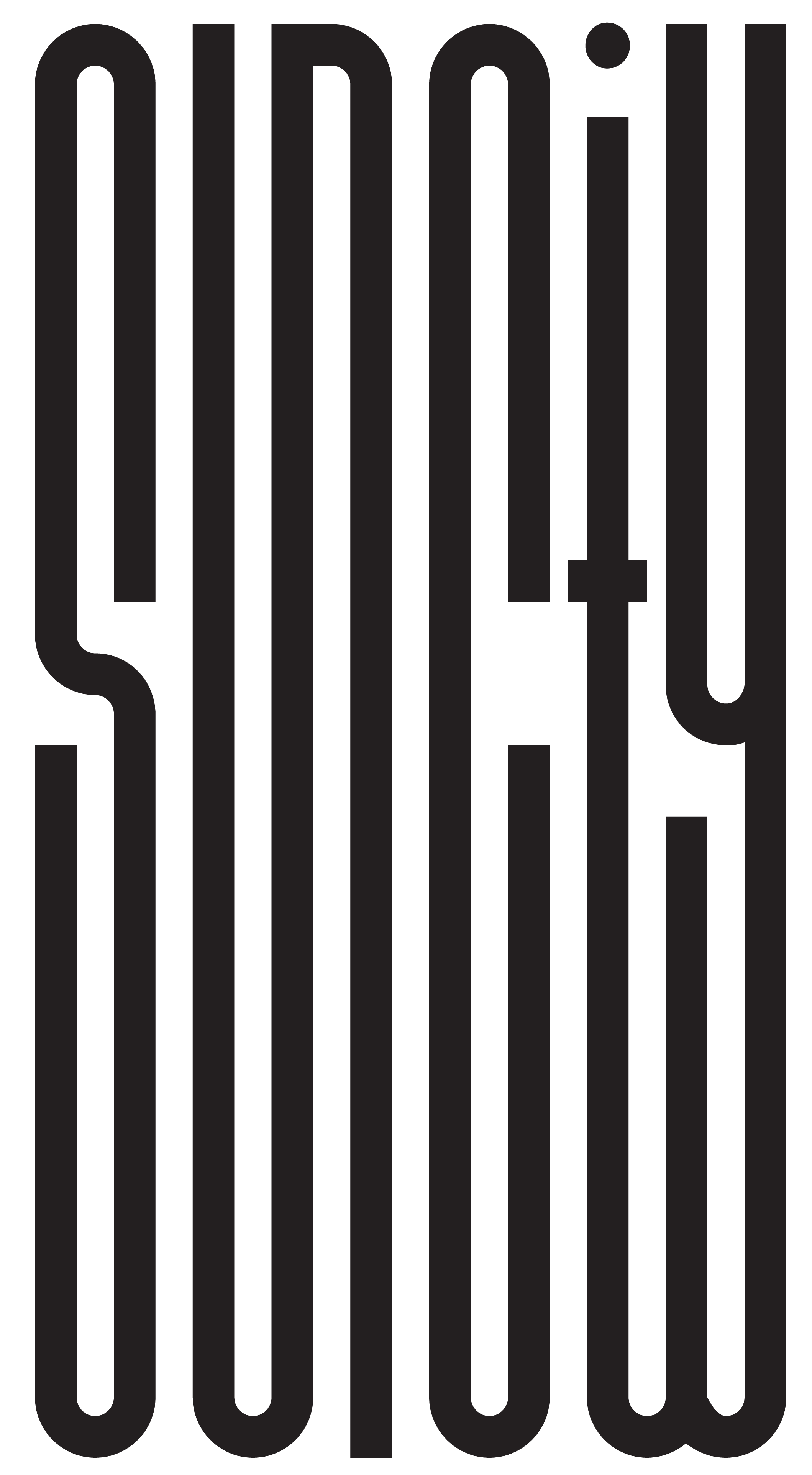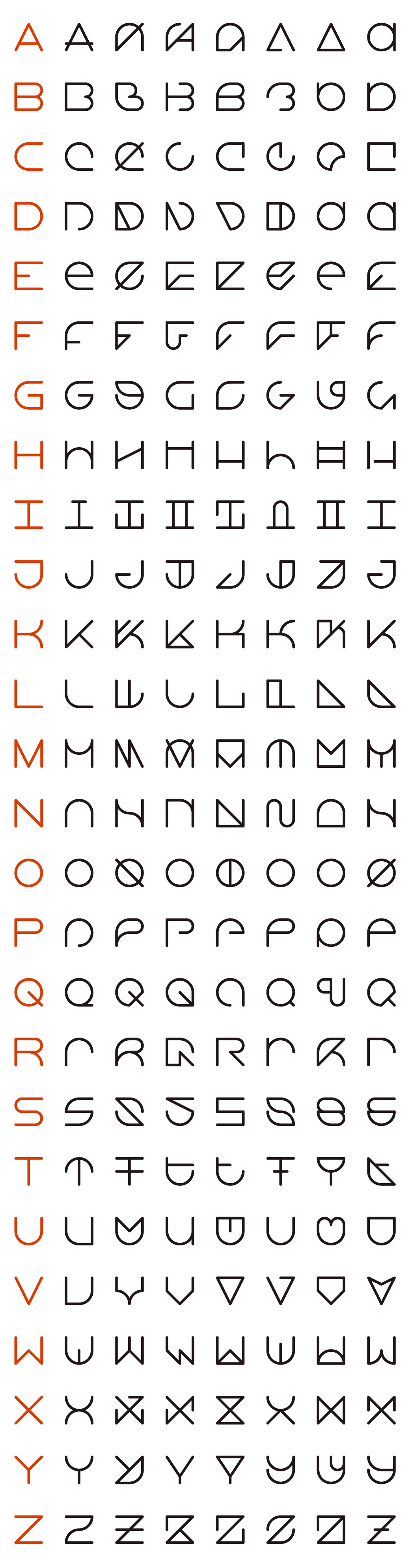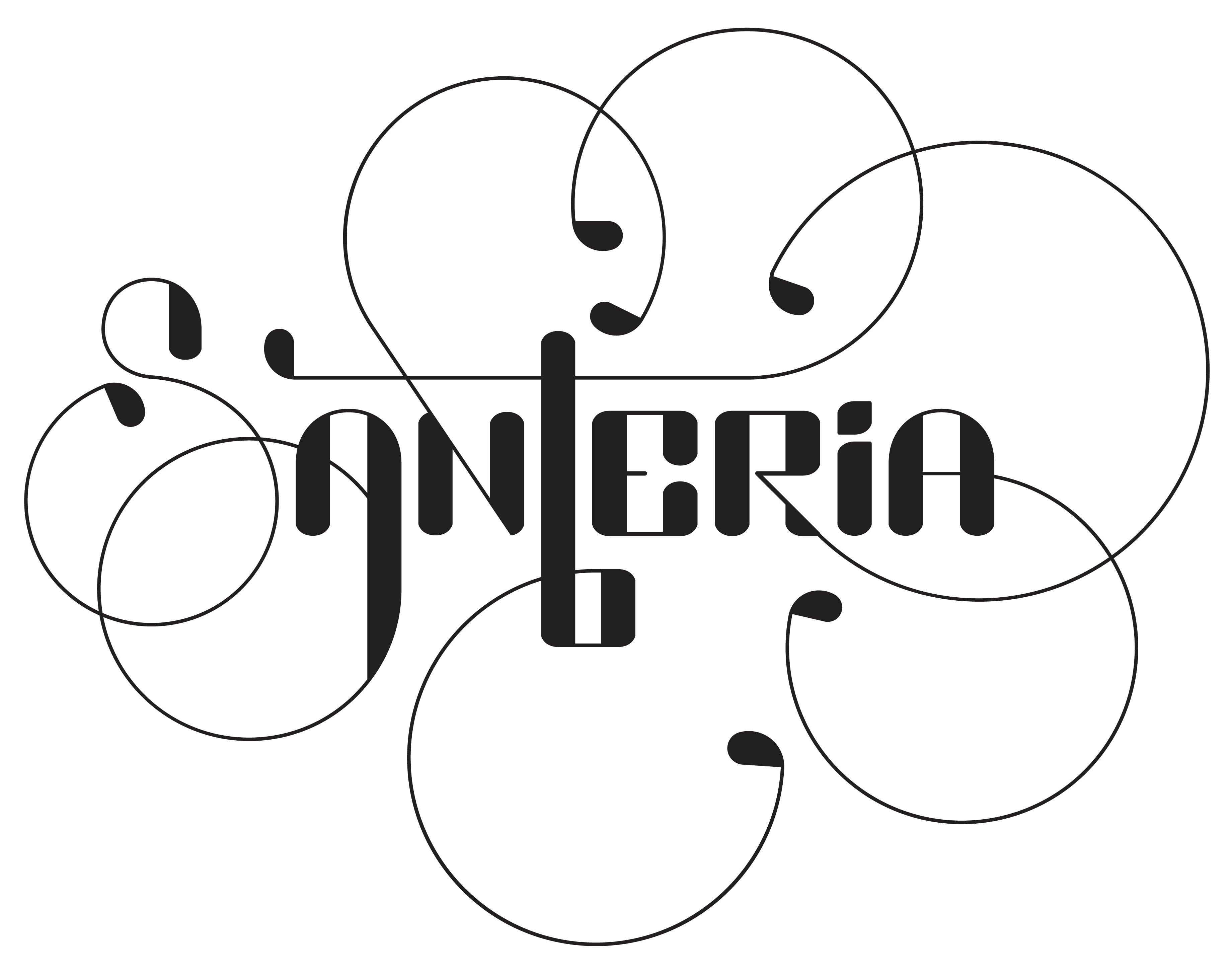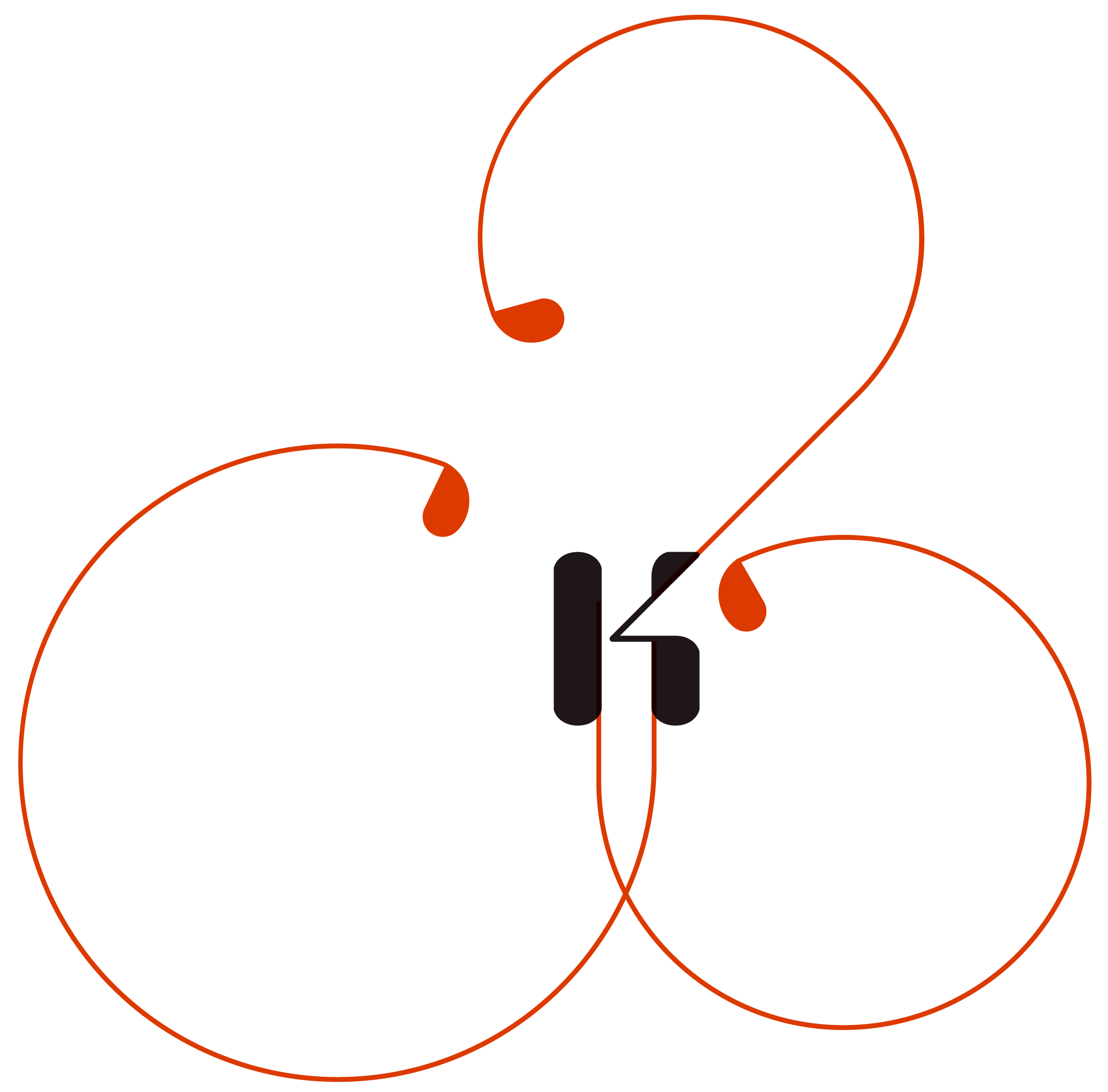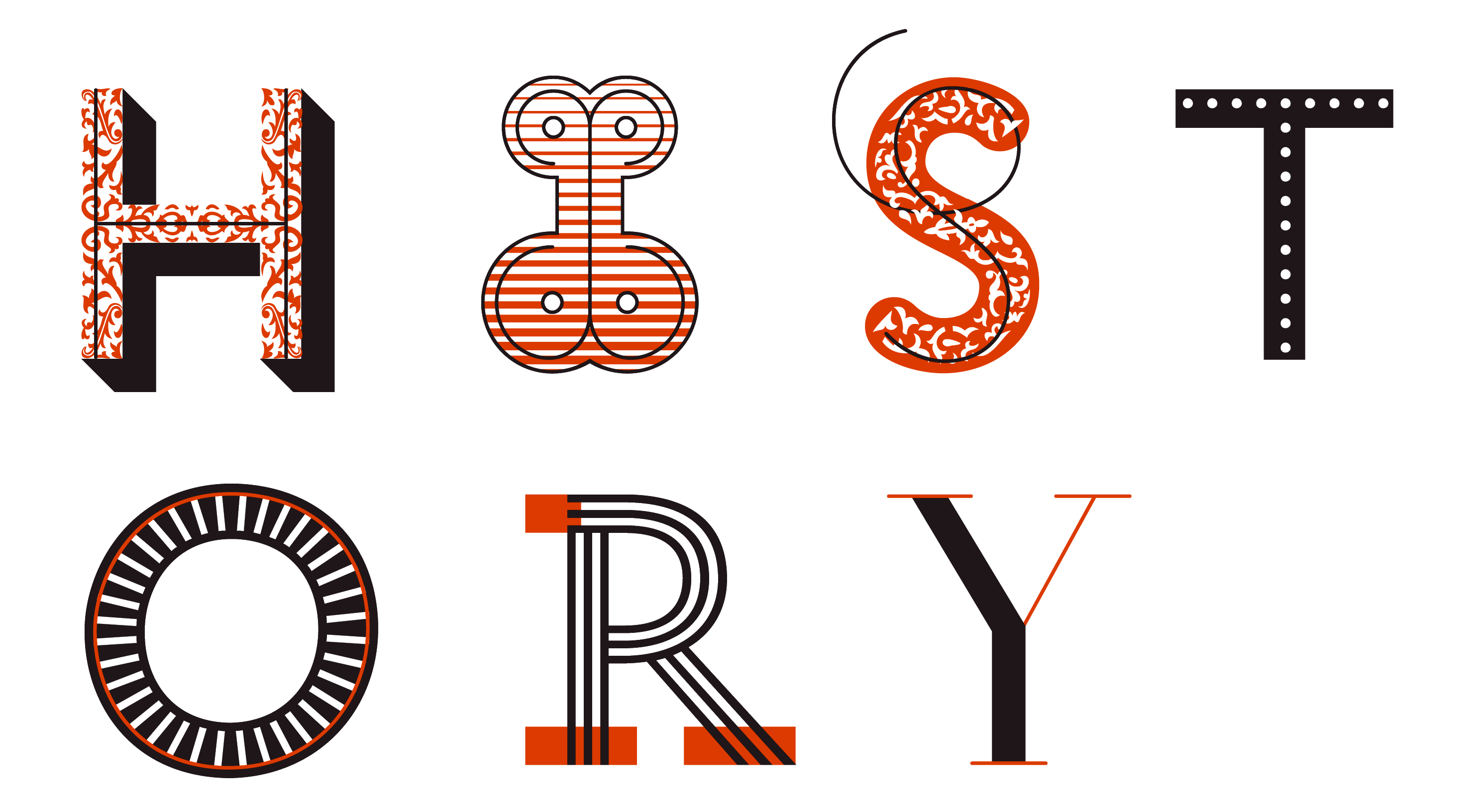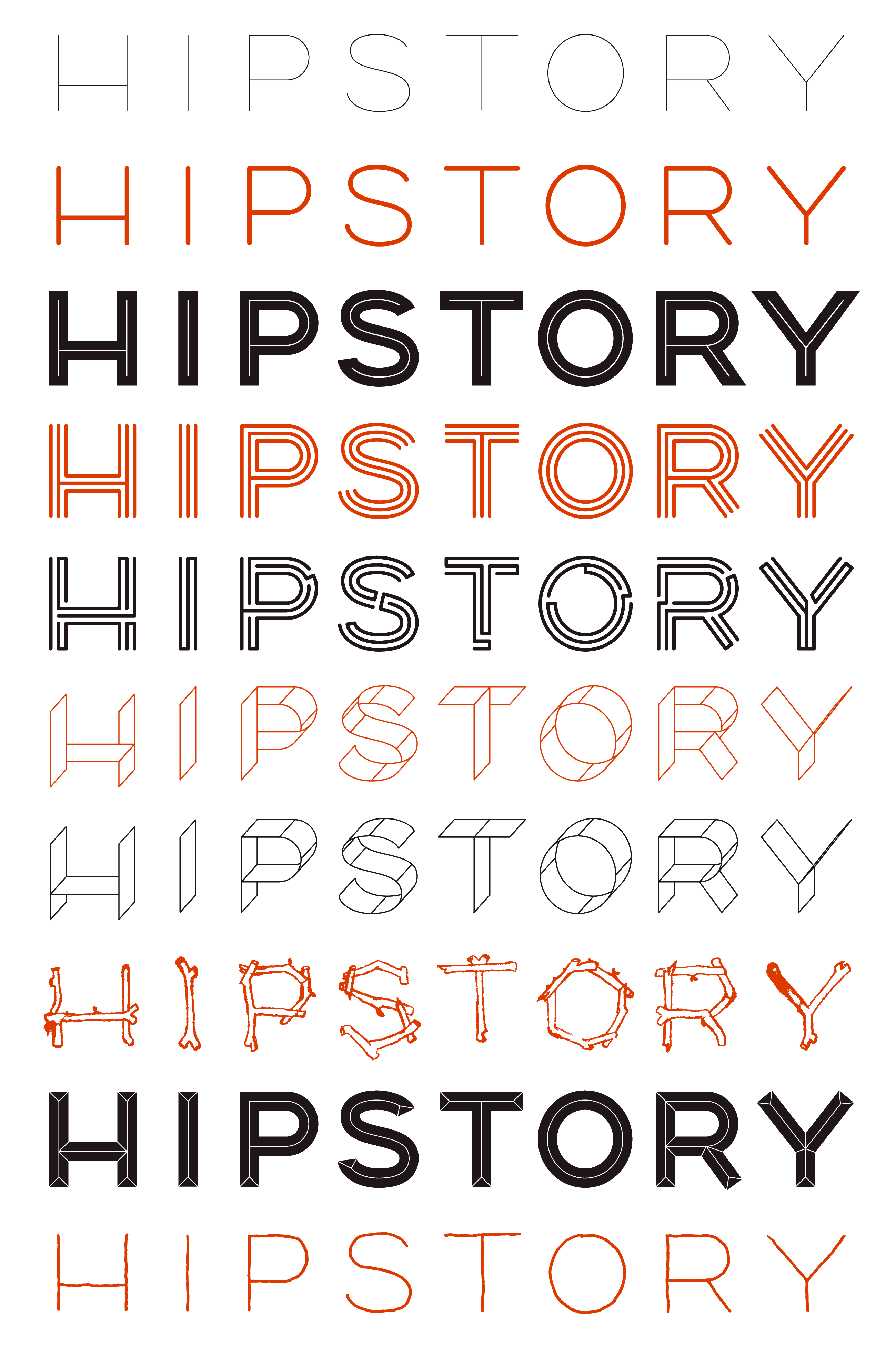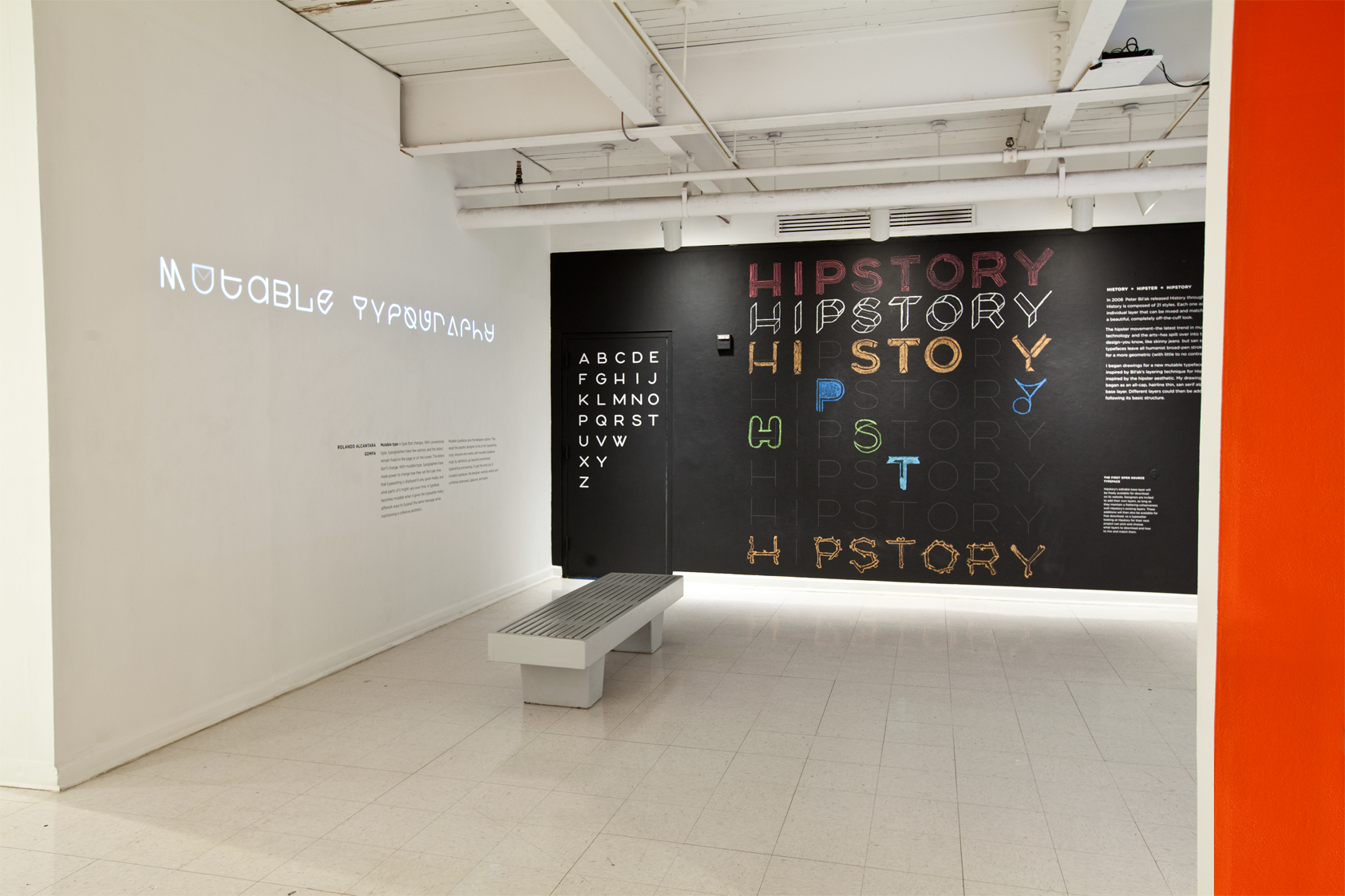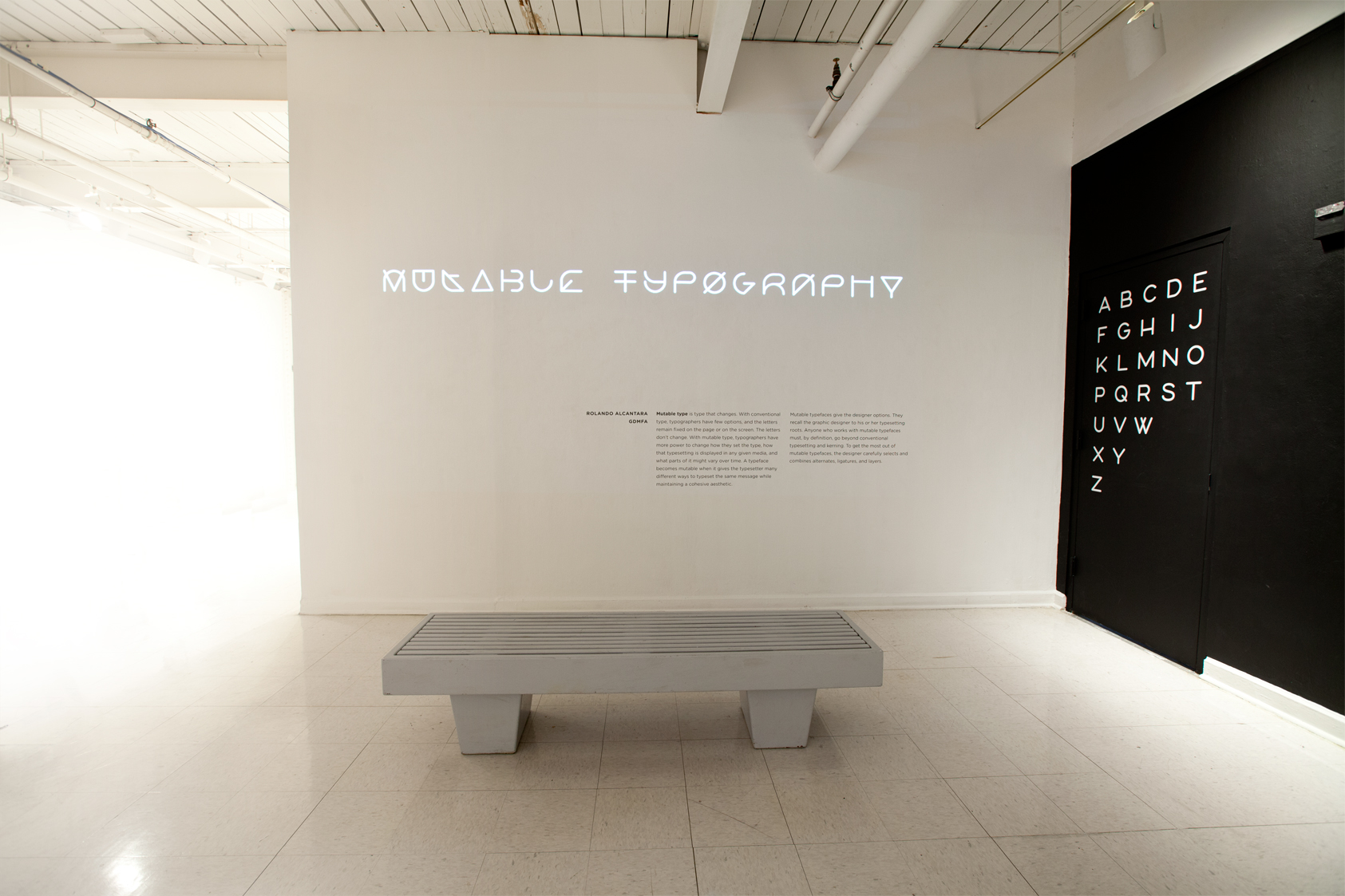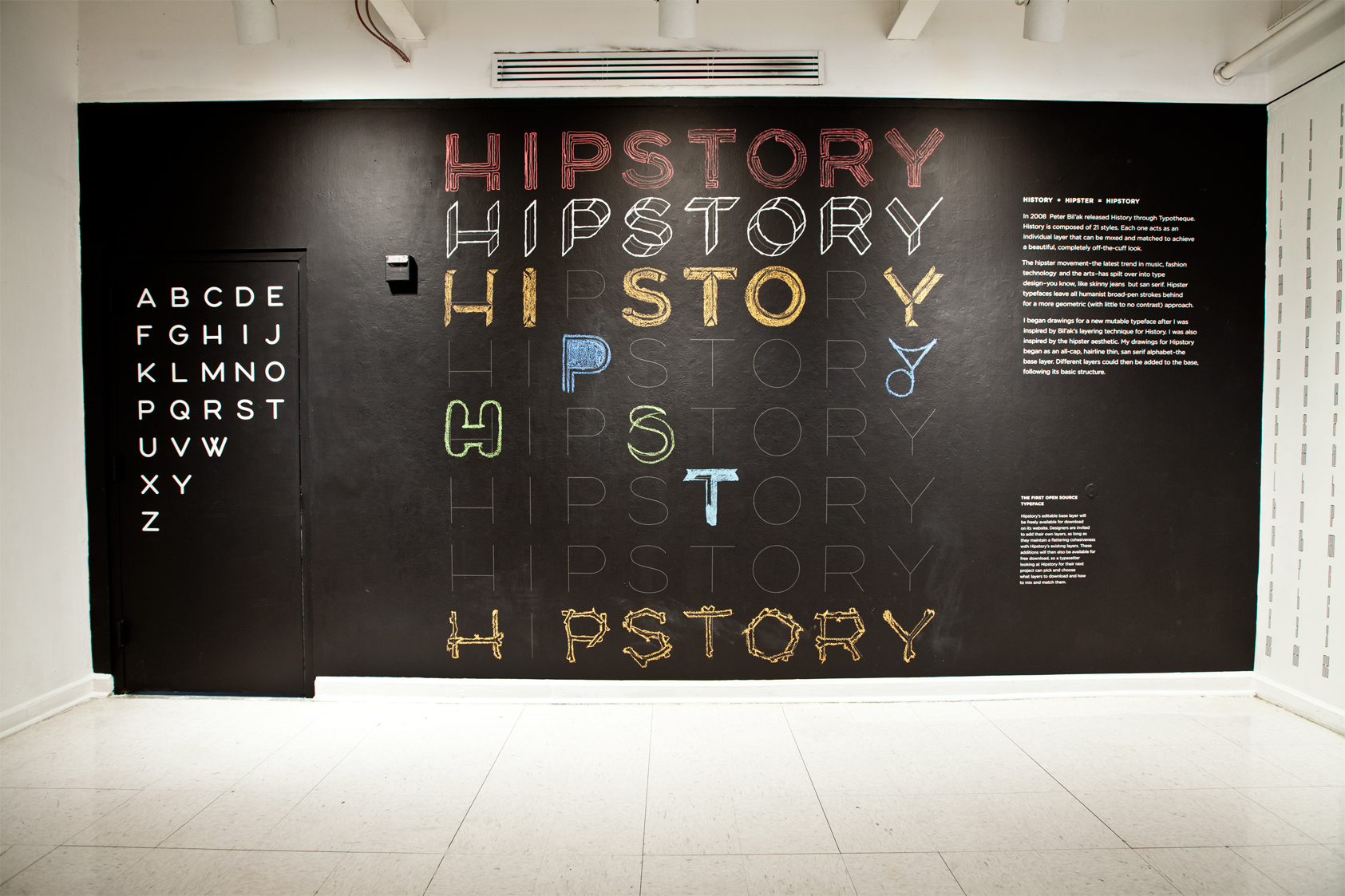
Mutable type is type that changes. With conventional type, typographers have few options, and the letters remain fixed on the page or on the screen. The letters don't change. With mutable type, typographers have more power to change how they set the type, how that typesetting is displayed in any given media, and what parts of it might vary over time. Mutable typography encompasses different kinds of type–alphabets, letterings, and typefaces.
An alphabet is any set of letters from A to Z that can be arranged to form words. An analog alphabet made for printing is a typeface. A digital alphabet is not a typeface unless it is in a correct font format like .otf, .ttf, .aat, etc. Digital alphabets reside in raster image files (composed of a collection of dots called pixels), vector files (composed of mathematically defined geometric shapes), or 3D file formats.
A mutable alphabet would feature options beyond a single set of A to Z characters. For example, physical, three-dimensional letterforms (like blocks of wood carved into letters) could be coated with blackboard paint, and a person could draw on the letter blocks with colored chalks. This would be a mutable alphabet. In this example, anyone could erase the colored-chalk drawings and redraw new ones to change the superficial exteriors of the letters, but not the letterforms (the wood blocks) themselves. The letter placement, legibility, and overall aesthetic would remain intact.
A digital image file containing different alphabets with a single aesthetic is a mutable alphabet. During my undergrad studies, I had a graphic design professor who made a mutable alphabet this way. He started with an old set of wooden type. He used the wooden type to letterpress an alphabet, but to make his set of letters into a mutable alphabet, he used the letterpress to stamp different versions of the alphabet. Then he scanned the letterpressed alphabets and gave his students a contact sheet of all the letters, including the different versions. Because the old wooden letters had different patterns of distress, no two versions of a letter were exactly the same. When typesetting from this alphabet, we were able to incorporate different versions of the letter A that were the same shape but had different distress patterns.
FIG1 Piled alphabet shapes from AlphaBeta | This figure contains all eight alphabets in the typeface in black; all single letters cycle trough in red.
Lettering refers to the process of an illustrator or type designer drawing letters to form a message of any length for one specific use only. Professionals are often called upon to make letterings for logos, magazine spreads, album covers, posters, tattoos, business names on storefront windows, advertisement murals on the sides of brick buildings, and so on.
Probably one of the most famous examples of lettering ever made is the logo for Coca-Cola. Those swift, script capital Cs are immediately recognizable and look odd without the rest of the mark. Coca-Cola's logo is considered lettering because it was drawn specifically for the brand. I've seen mediocre attempts where someone has tried to take the letters from the logo and build a non-mutable typeface around them, but it's nearly impossible to make a non-mutable font resemble true lettering. The Coca-Cola letters were drawn specifically to connect in a single work of art, a brand name, and not to be individually disconnected and reordered, the way a font would be.
A letterer–he or she who creates letterings–would take advantage of new media to make a lettering piece mutable. On the internet, animated GIFs can be used to make mutable letterings. A GIF (pronounced like the peanut butter Jif) is a web-friendly image format. An animated GIF contains different images as layers that are revealed on a timer like video and film. In a mutable lettering GIF, each layer can hold different mutations of the letterforms. With each timed reveal of a layer, the lettering changes into a different version of itself.
FIG2 Brand New Stars | Jason Wong created this animated GIF of mutable lettering for Friends of Type
Video could also be used in a similar way as animated GIFs. A loop showcasing a curated morphing of characters is also an example of mutable lettering. Like animated GIFs, video depends on screen media.
Printed lettering must be more audacious to become mutable–perhaps relying on the reveal of different translucent physical layers to change the letterforms underneath, or something equally far-fetched.
Typefaces are any set of type (a usual set has upper and lowercase alphabets, numerals, hyphens and punctuation marks) in which the design looks cohesive from one character to another. Typefaces are ready to be set letter by letter to form any text. Digital typefaces are called fonts. Analog typefaces are carved out of wood or cast in lead for use in printing presses.
A typeface becomes mutable when it gives the typesetter many different ways to typeset the same message while maintaining a cohesive aesthetic. If a typeface comes with an alternate A, that gives me two different ways to typeset the word Apple–one with the regular A, and one with the alternate A. Two ways to typeset Apple are not enough to make a typeface mutable. If another typeface has one alternate for every letter in the alphabet, that would give me a lot more options to typeset the word Apple (32 to be exact). This typeface would be a mutable typeface.
You might be thinking, "Okay, but many typefaces come with small cap alternates. Does that make them all mutable typefaces as well?" The answer is no. Small caps are not intended to be alternates for either uppercase or lowercase letters. They have a separate function within a type family, and that function is not to operate as lowercase alternates. They are an entire alternate category for titling. Instead of uppercase titling, small caps are lowercase titling. They function as uppercase letters limited by the x-height of the lowercase.
Mutability in type is so far fun but not indispensable. Mutability is about aesthetics, not information. The word water will say "water" with or without 1,400 varying alternates. However, mutability conveys a contemporary message, one that resonates especially with designers: Everything is always changing.